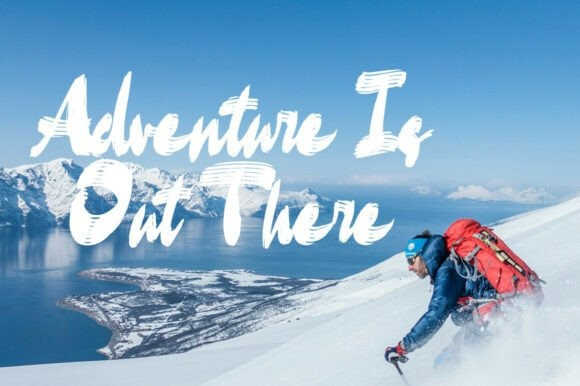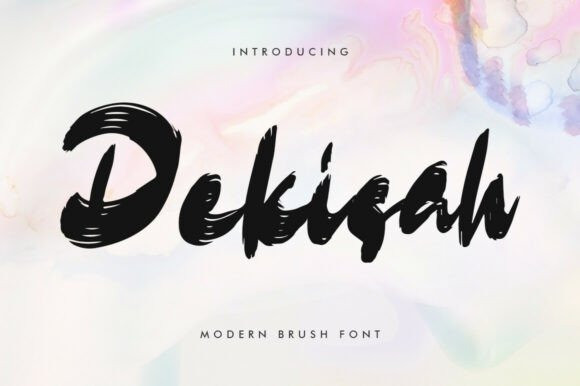
Dekisah Brush Font
Dekisah Brush Font is a bold, expressive, modern brush font that captures the energy and spontaneity of handwriting. The thick strokes and vibrant brush texture give it a raw, edgy look while maintaining clarity and visual impact. The letters are somewhat irregular and natural, creating a natural flow and creative personality, giving it a vibrant and vibrant feel. The dry brush texture adds to its artistic appeal, making it a powerful visual tool to grab attention.
This font is especially suitable for creative and impactful projects such as poster design, streetwear branding, album covers, YouTube thumbnails, social media ads, and event promotions. It is perfect for any layout that requires an artistic, dynamic, and modern touch – where the typography becomes part of the visual statement itself. Dekisah brings style and personality to bold headlines or expressive logos.